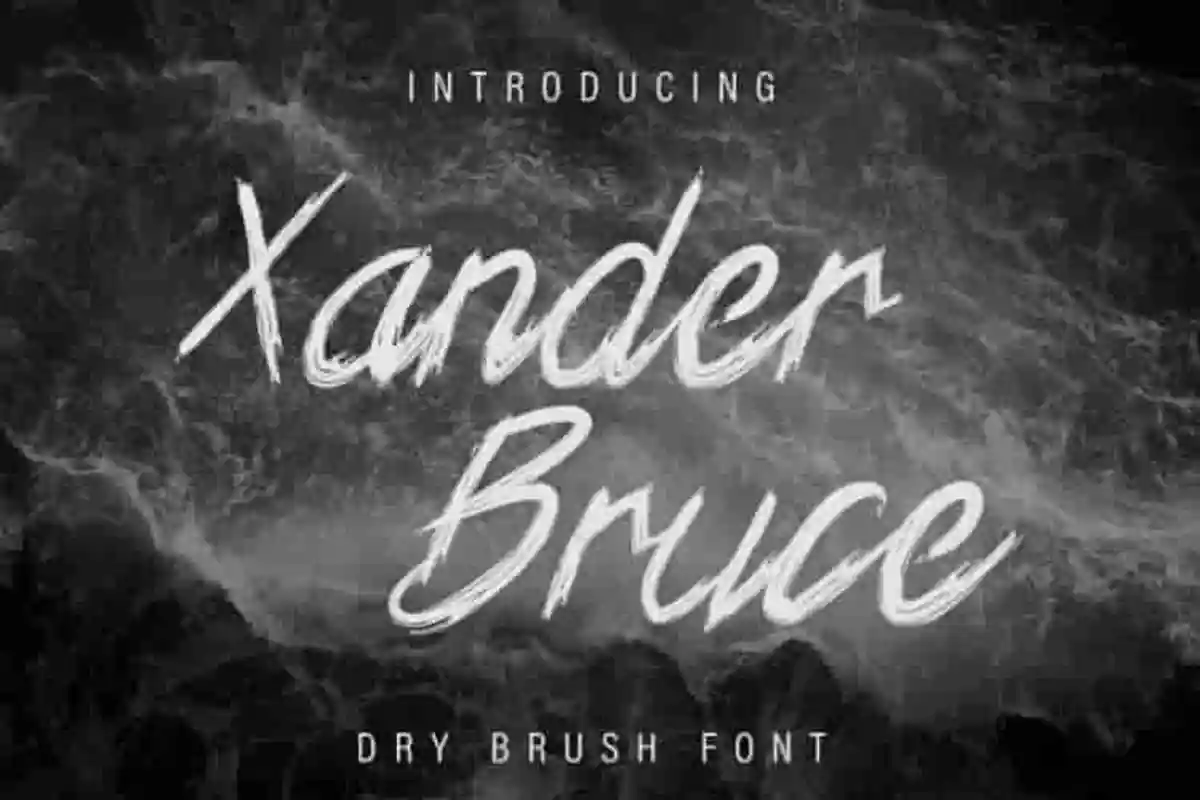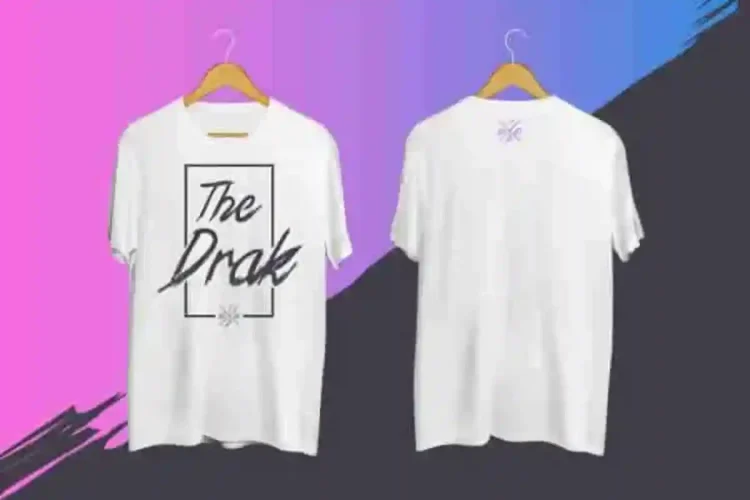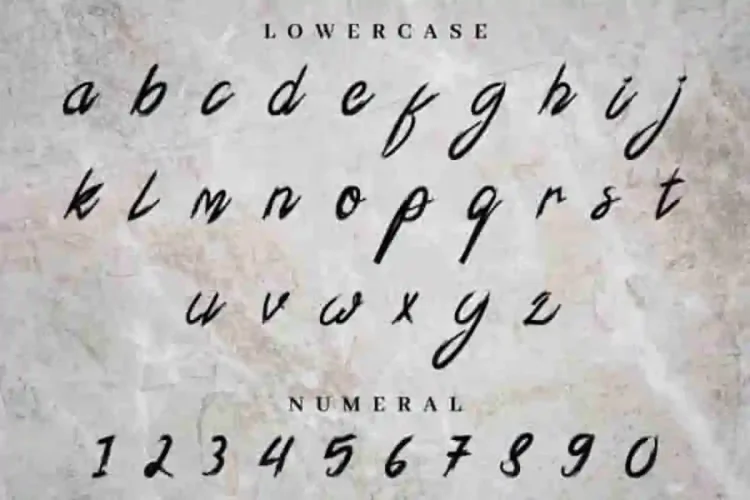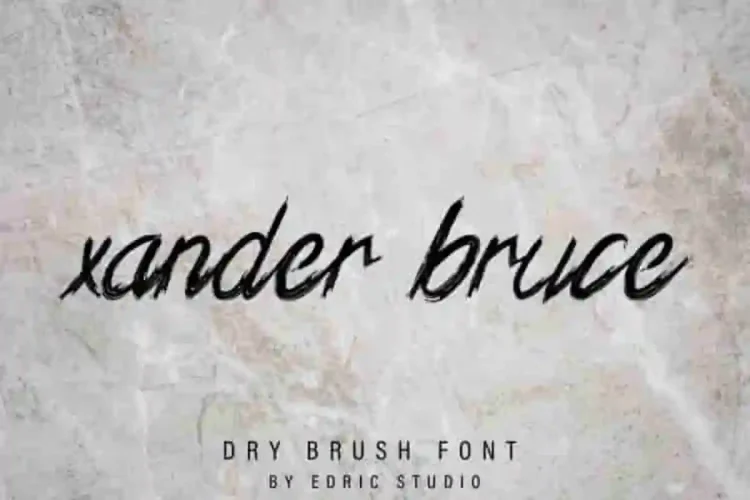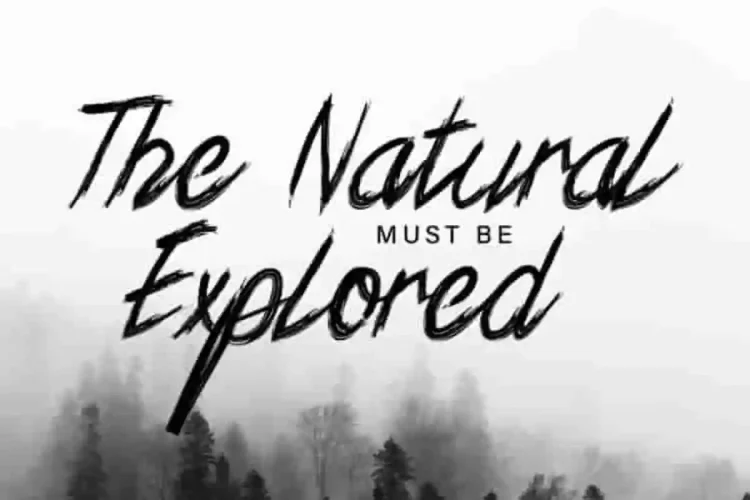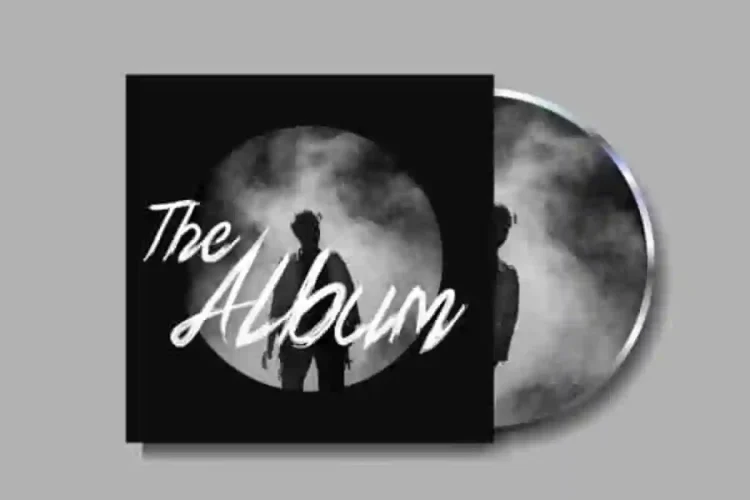
Xander Bruce Handwritting Font
Today we are going to present one of our latest font. Introducing : Xander Bruce Brush Font
This new font is a new modern script display font, which has a unique dry calligraphy style. With its style you can explore many industries and designs categories including and not limited to : wedding, events, music, restaurant, cafe, coffee etc. With an extendend licenses you can create anything you want : Branding (logo, stationery, bizcard, head letter, folder etc), promotions stuff (flyer, brochure, postcard etc), Digital marketing (Banner, Ads, cover etc), Personal Invitation, Magazine, Website etc.
Xander Bruce Brush Font has an exclusive  glyphs so you can stand out the crowd and be different. With your creativity, there’s no limit using with this font.